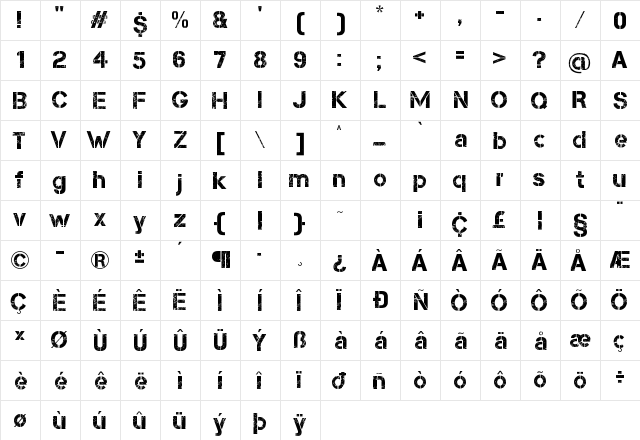
Capture Smallz Regular
Design Context for Capture Smallz Typeface
Capture Smallz is a composed and adaptable typeface that performs quietly and consistently across a wide range of design contexts.